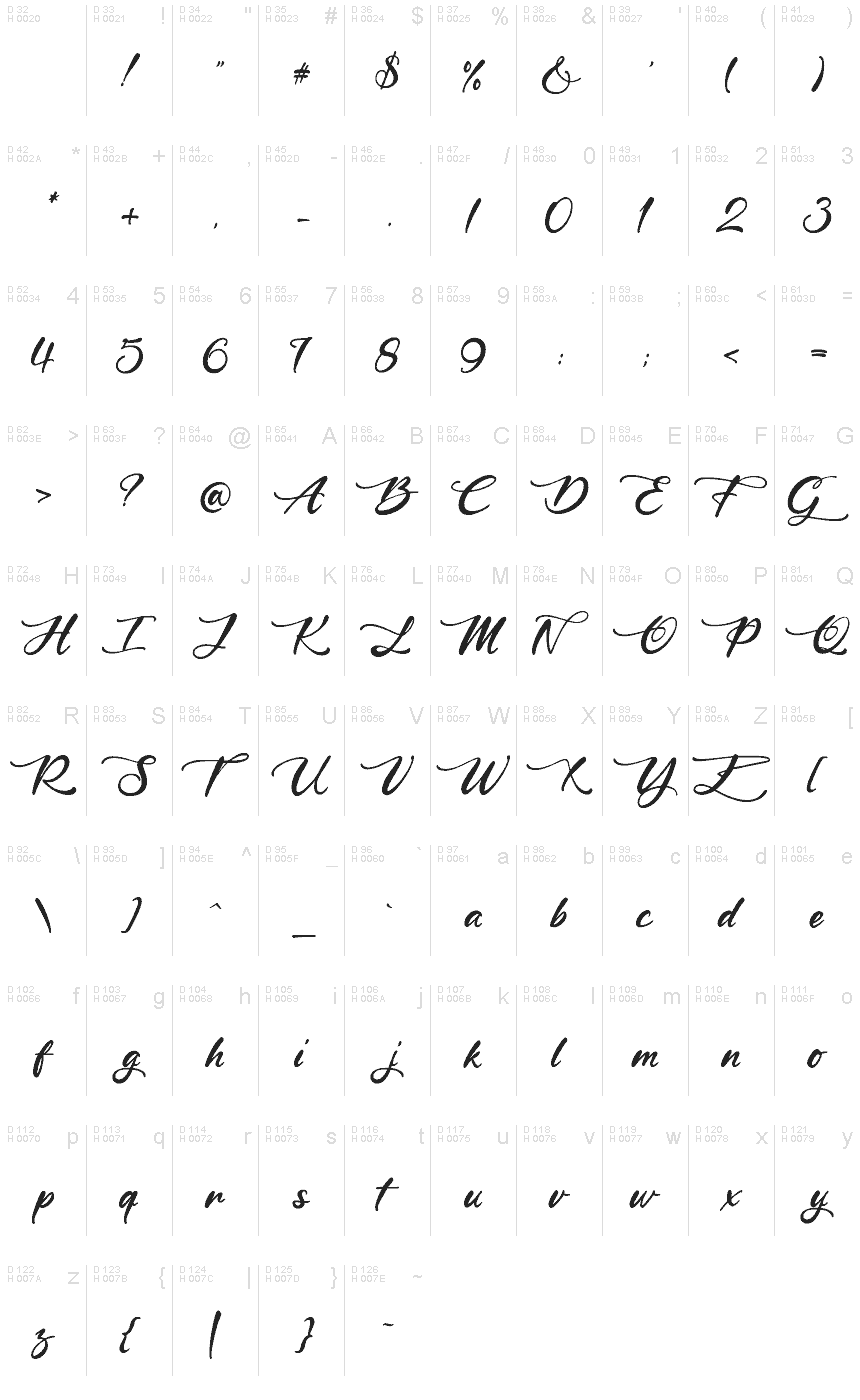
Shine in Valentine
Shine in Valentine font designed by Cat.B is an expressive and elegant free calligraphy font. The flowing letterforms along with the subtle decorative touches make this typeface both versatile and impactful. It combines influences of modern calligraphy while maintaining a romantic ambiance which is visually present in the overall look of the text.